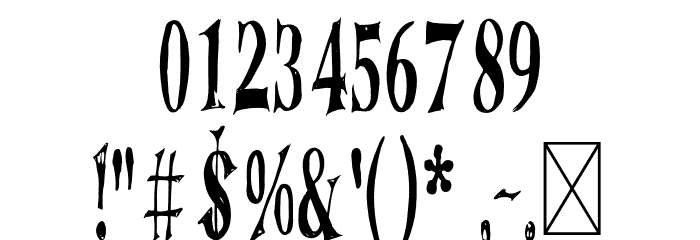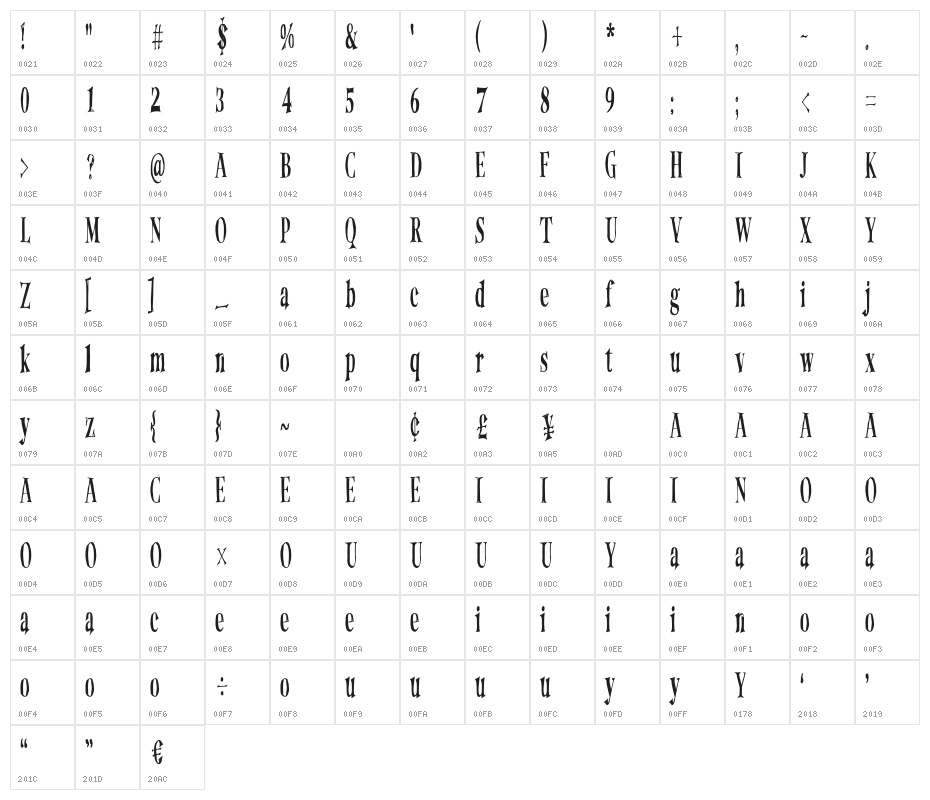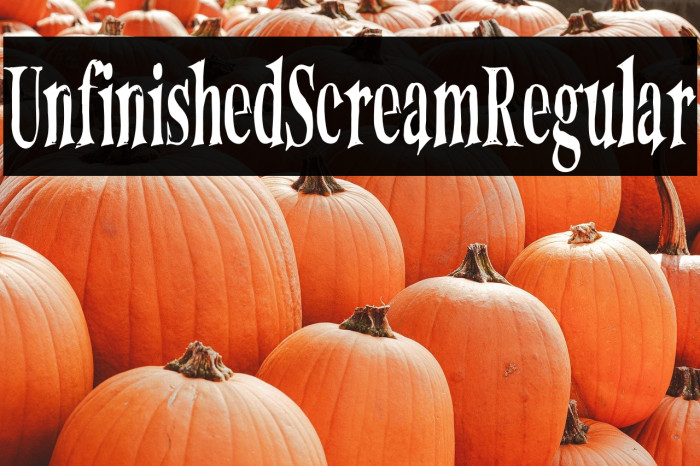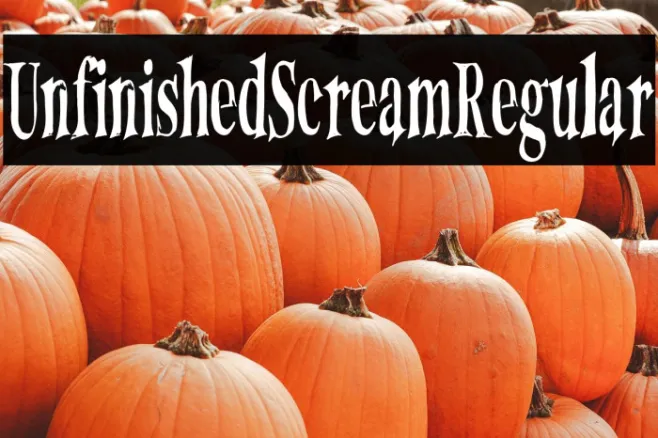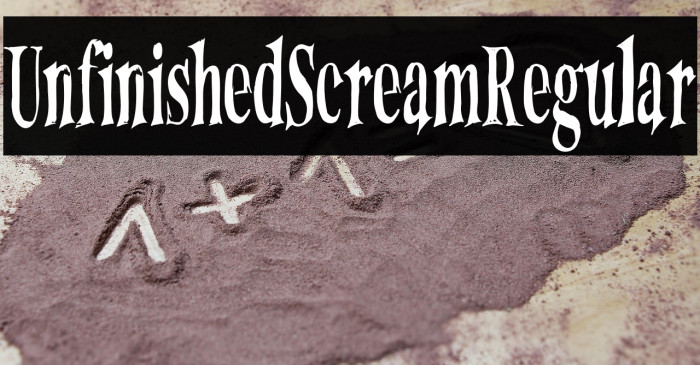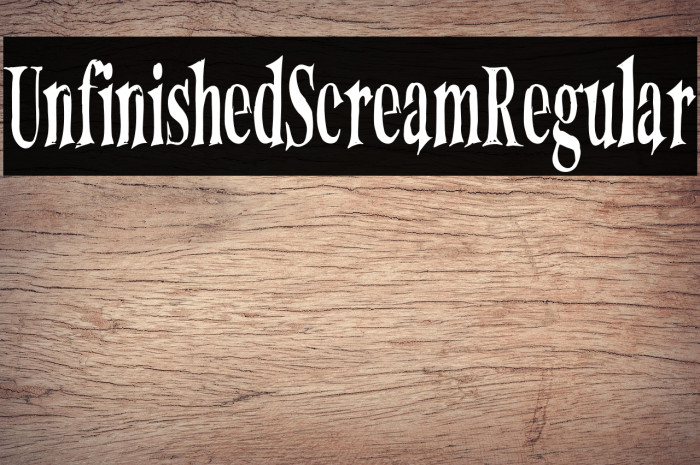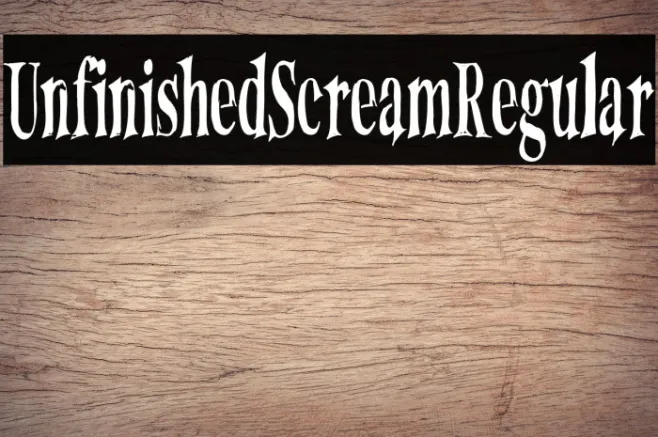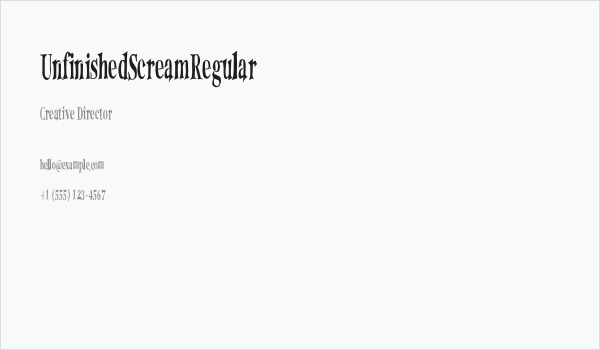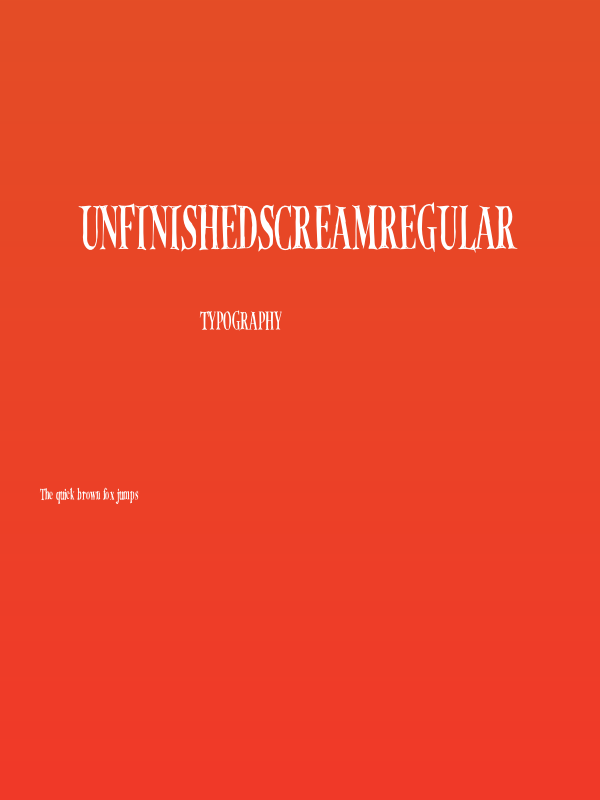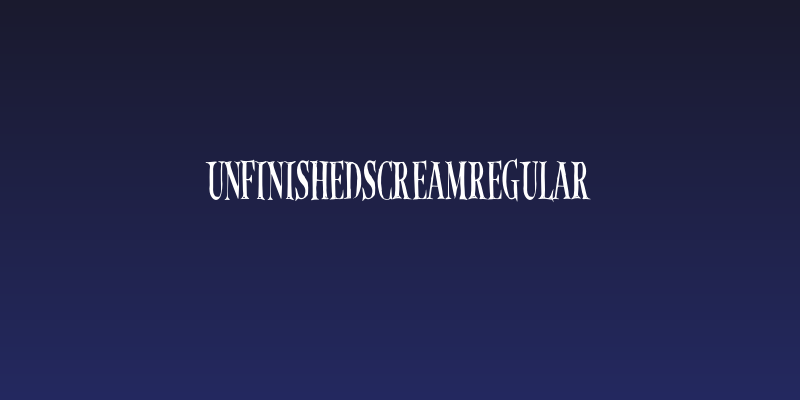
UnfinishedScreamRegular Font
UnfinishedScreamRegular Description
This font features a dramatic and expressive style, characterized by sharp, angular serifs and a slightly distressed appearance. The uppercase letters are tall and commanding, while the lowercase letters maintain a consistent flow with a hint of irregularity, adding to the overall dynamic feel. The numbers are bold and maintain the same expressive quality, making them stand out effectively. Special characters are uniquely styled, complementing the font's overall aesthetic. This font's distinctive look makes it suitable for projects that require a bold and artistic touch.
| Use Case | Headlines, Logos, Artistic projects |
| Proposed Projects | Ideal for poster designs, album covers, theatrical event promotions, and artistic branding. |